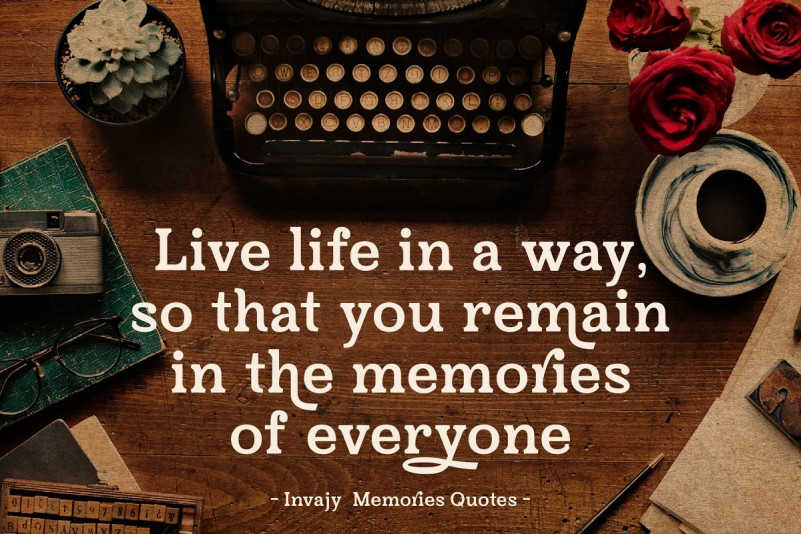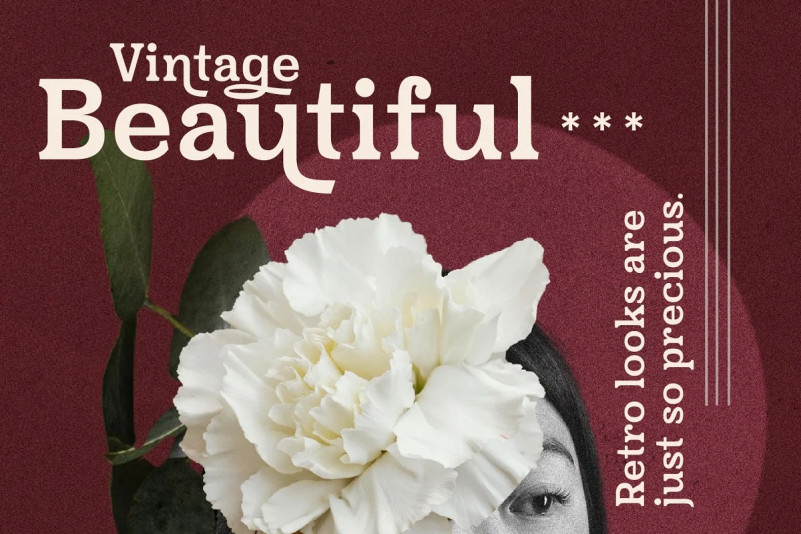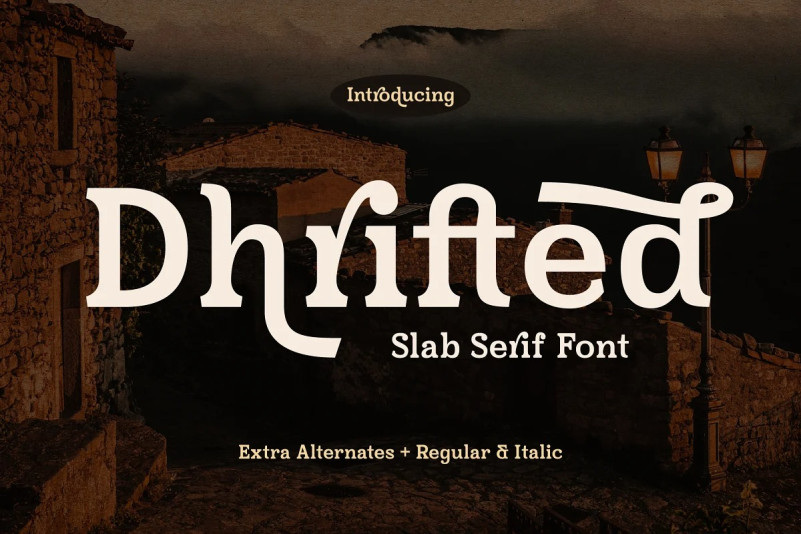
Dhrifted Font
Proudly present Dhrifted Slab Serif Font , created by Storytype, A serif modern and classic typeface that has own unique style & modern look. This typeface is perfect for an elegant & luxury logo, book or movie title design, fashion brand, magazine, clothes, lettering, quotes, and so much more.